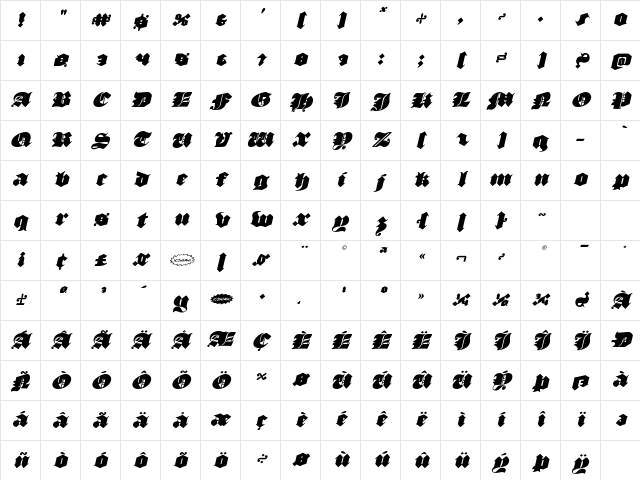
Complete Lux Contra Tenebras Italic Italic glyph index. Displaying only characters natively supported by Lux Contra Tenebras Italic Italic font.
Lux Contra Tenebras Italic is a composed and adaptable typeface that performs quietly and consistently across a wide range of design contexts. The slanted form adds forward momentum and visual energy.